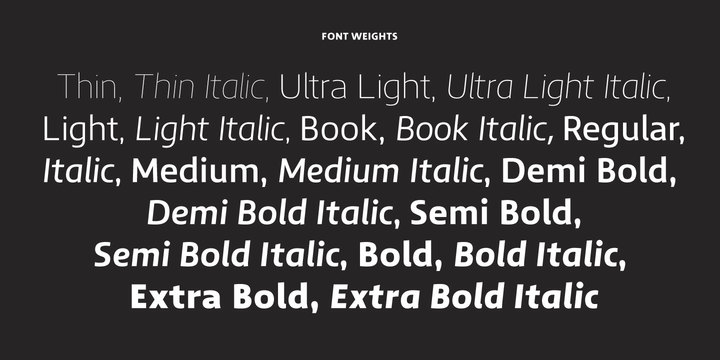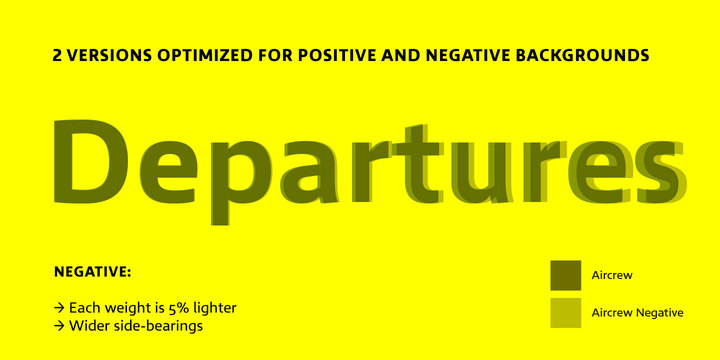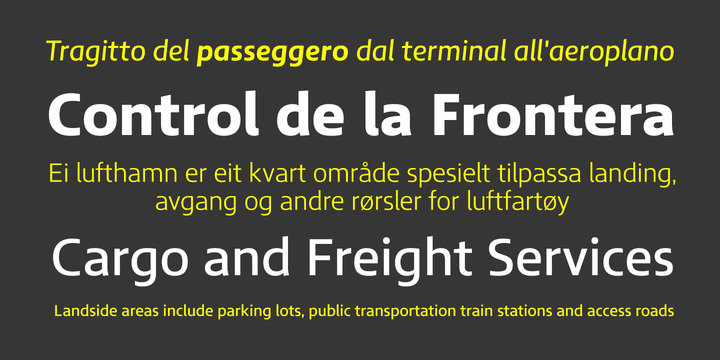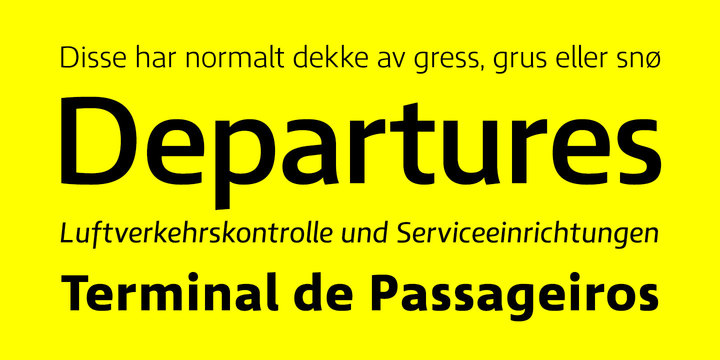
Aircrew Font Family
Aircrew is a neutral, humanist sans-serif family optimized for signage applications in display sizes. Its large x-height enhances readability and its letterforms help distinguish characters from each other, increasing legibility. Aircrew has vertical terminals, low contrast, and short ascenders and descenders. The weight variations between uppercase and lowercase characters provide the perfect balance and its slightly condensed proportions allow more words to fit in less space. There are two different versions of Aircrew, positive and negative. This avoids optical effects that cause uneven thickness and unsteady readability in either light or dark backgrounds.